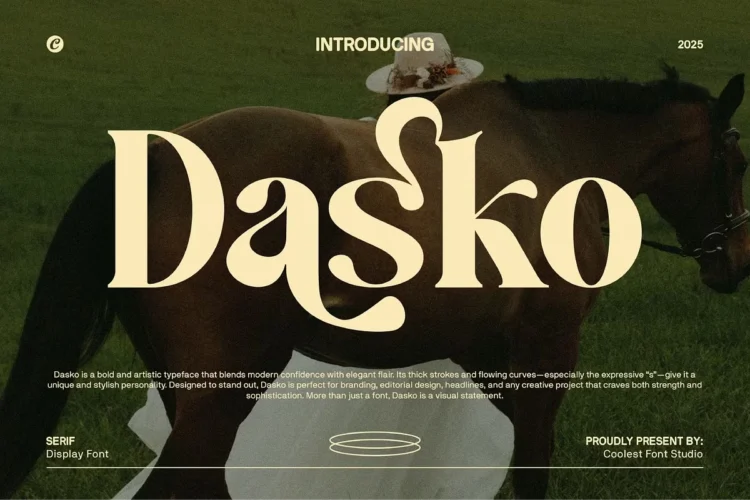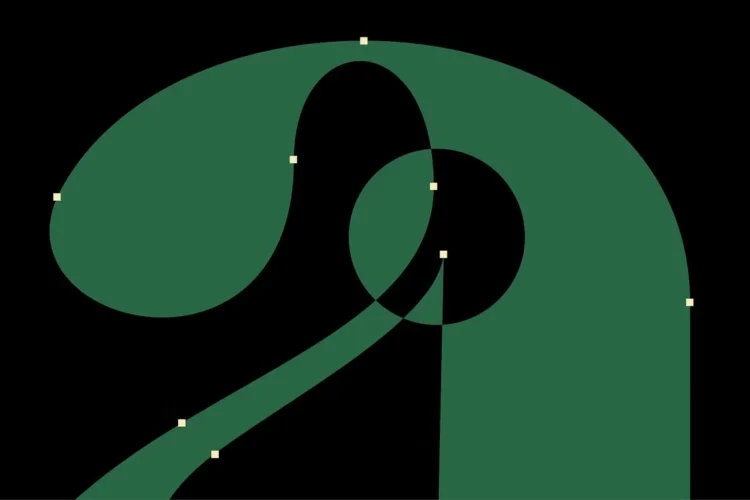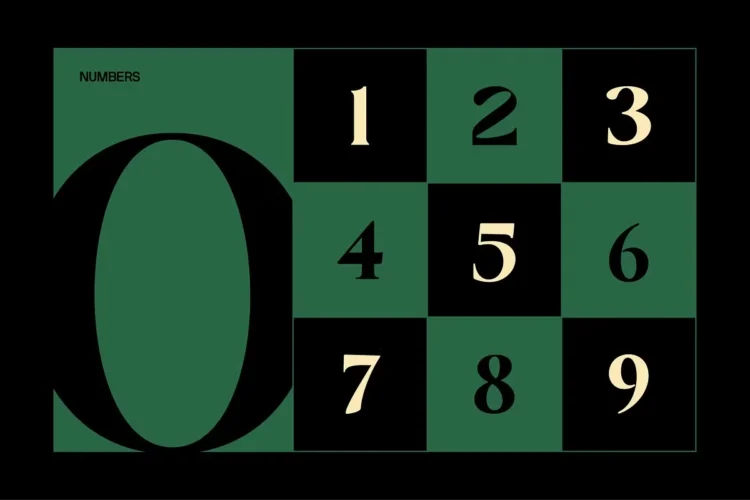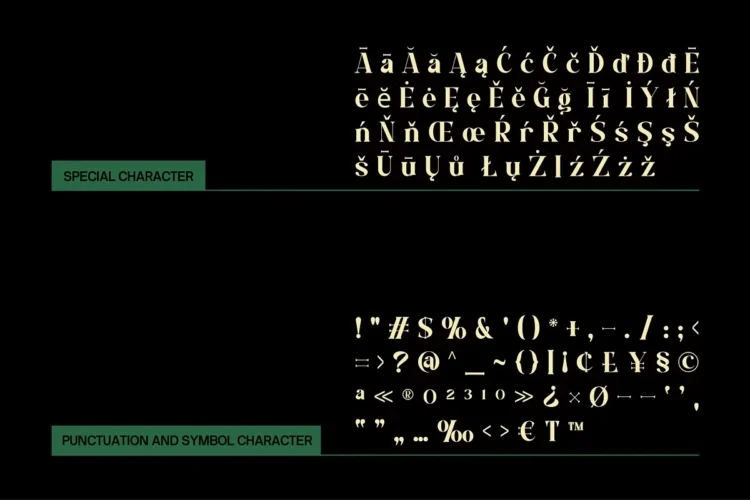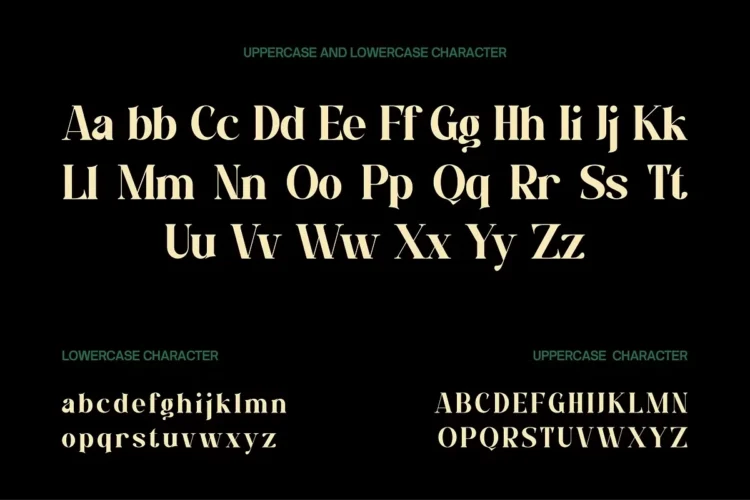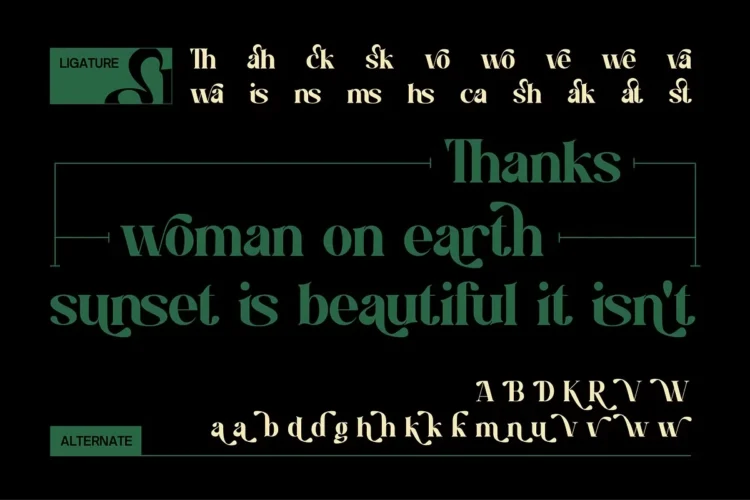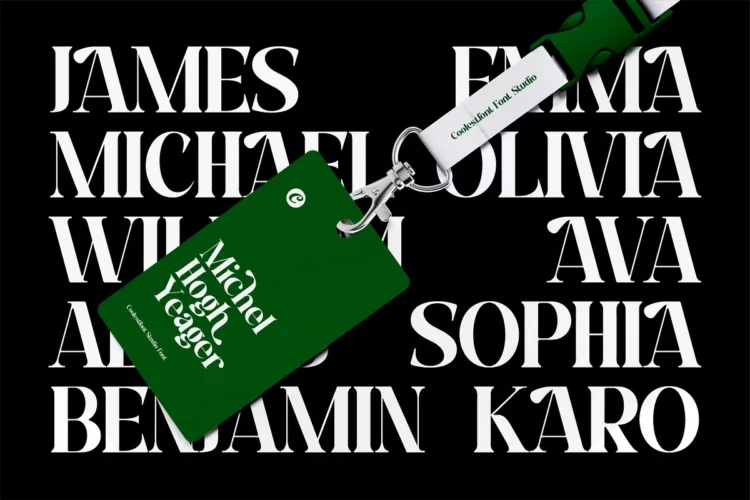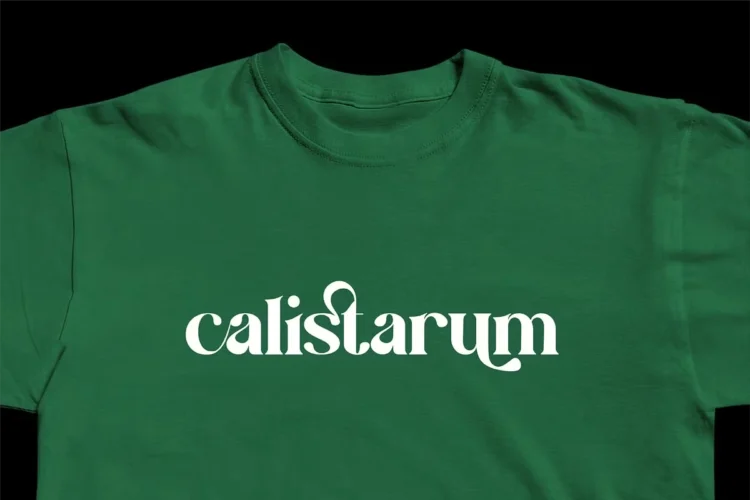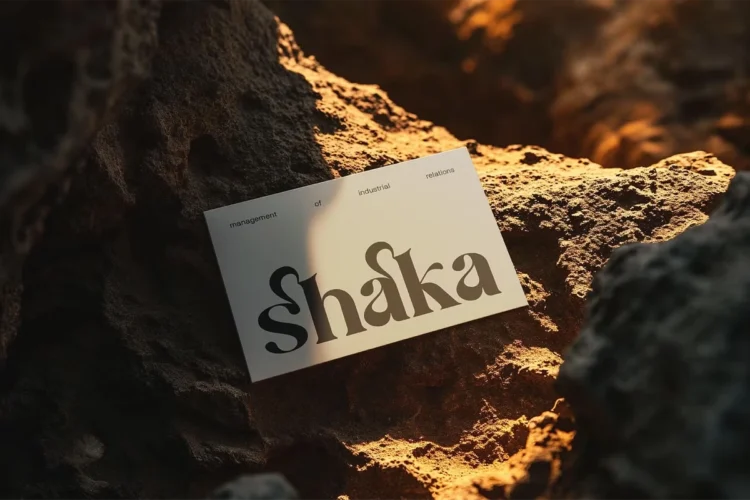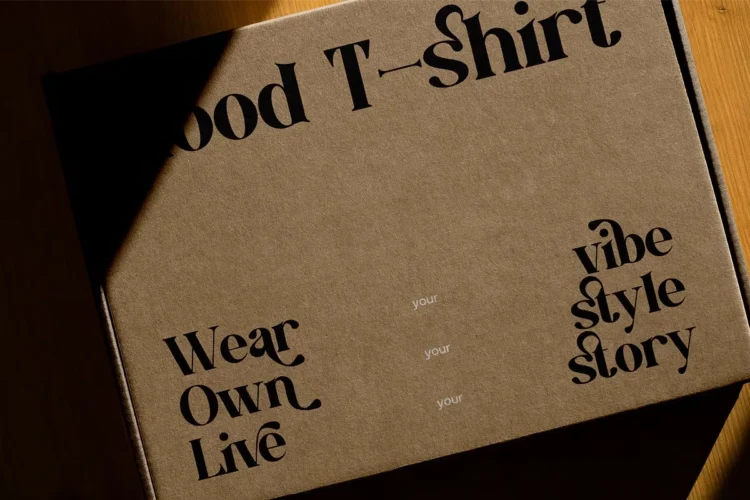
Dasko Font – Modern & Elegant Serif Typeface
Dasko Font is a striking serif typeface designed to balance modern aesthetics with timeless elegance. With its high-contrast strokes, flowing curves, and signature swashes, Dasko stands out as a stylish and versatile choice for designers who want to create bold, refined, and visually captivating work.
This cool and elegant font is part of the newest wave of modern fonts, perfect for use as a logo font, editorial typeface, or luxury branding tool. Its aesthetic charm and professional craftsmanship make it one of the coolest fonts for fashion, beauty, and high-end design projects.
Dasko Font is packed with features including uppercase and lowercase characters, ligatures, stylistic alternates, multilingual support, and punctuation. Whether you’re crafting a chic logo, sophisticated packaging, or eye-catching social media graphics, this font adapts beautifully to every need.
Features
- Uppercase & lowercase letters
- Alternates & ligatures
- Multilingual support
- Numbers & punctuation
- High-contrast serif design
- Display-ready shapes
Best For
- Logo and branding design
- Fashion & beauty projects
- Editorial layouts
- Luxury product packaging
- Wedding invitations & stationery
- Posters and signage
- Digital & social media content
- Creative portfolios and lookbooks